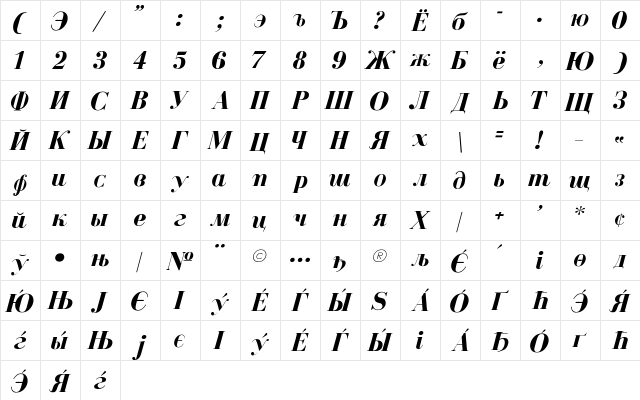
Cyrillic-Bold-Italic Regular
Design Context for Cyrillic-Bold-Italic Typeface
Cyrillic-Bold-Italic offers clean, dependable letterforms without strong stylistic allegiance, making it a practical choice for designers who need flexibility. The dynamic lean of this cut emphasises speed and emphasis in any layout. The heavy weight commands attention and anchors typographic hierarchies.